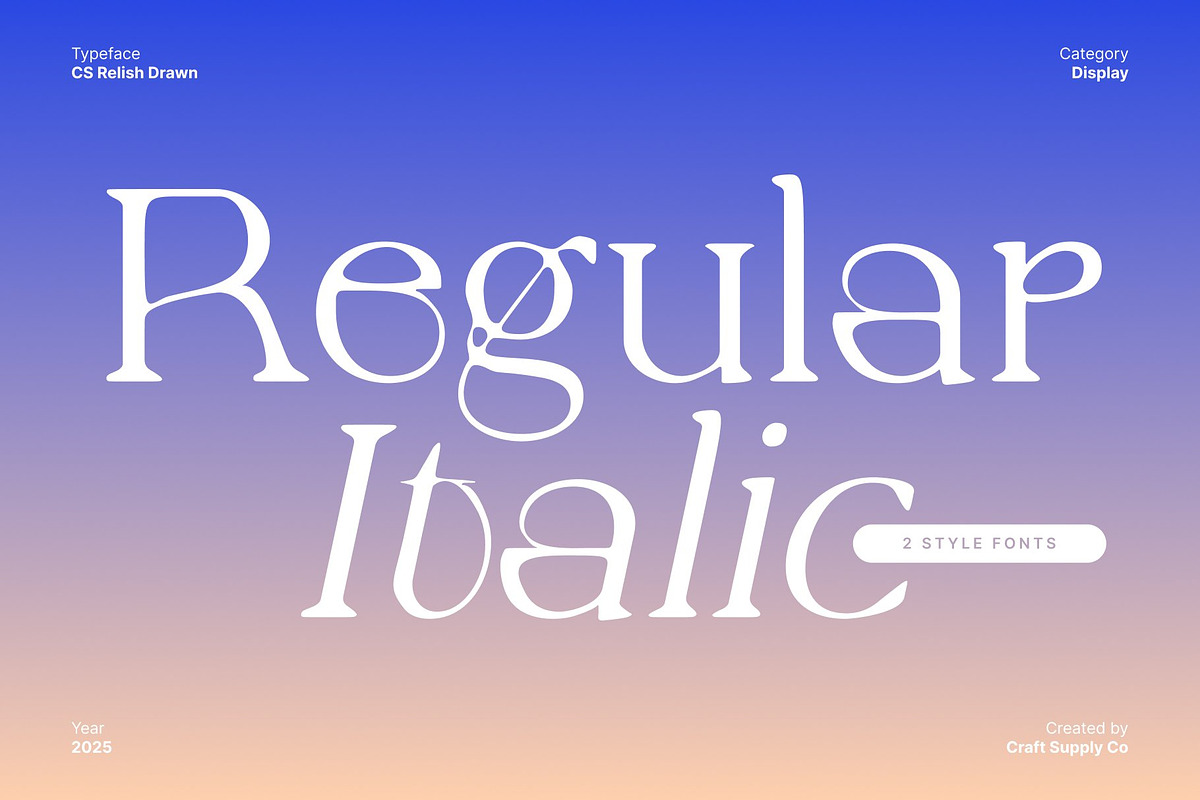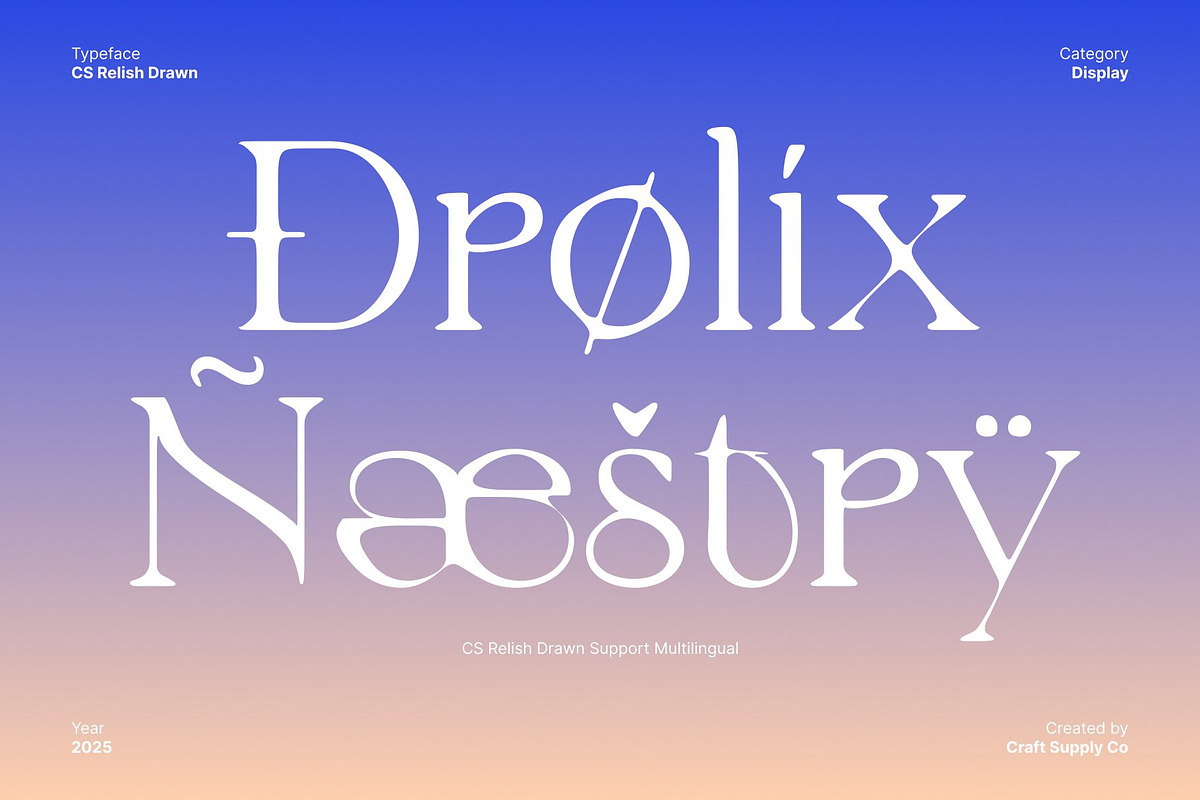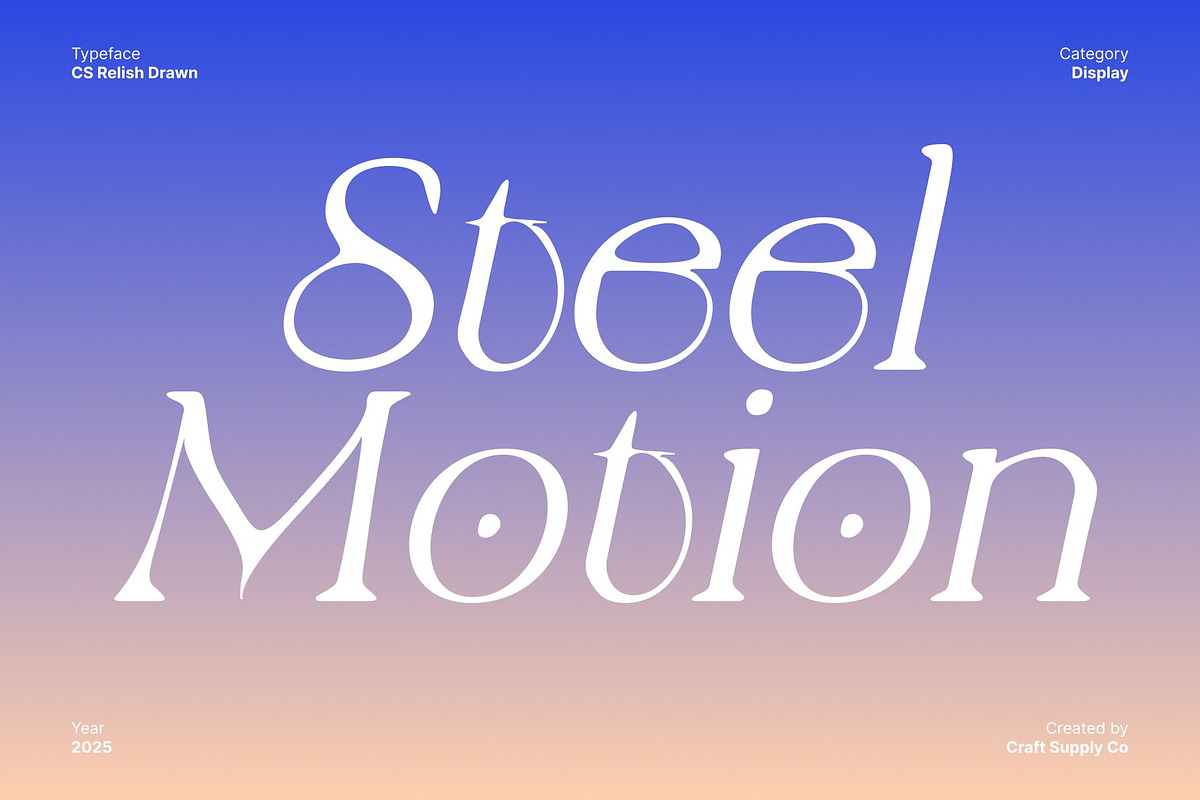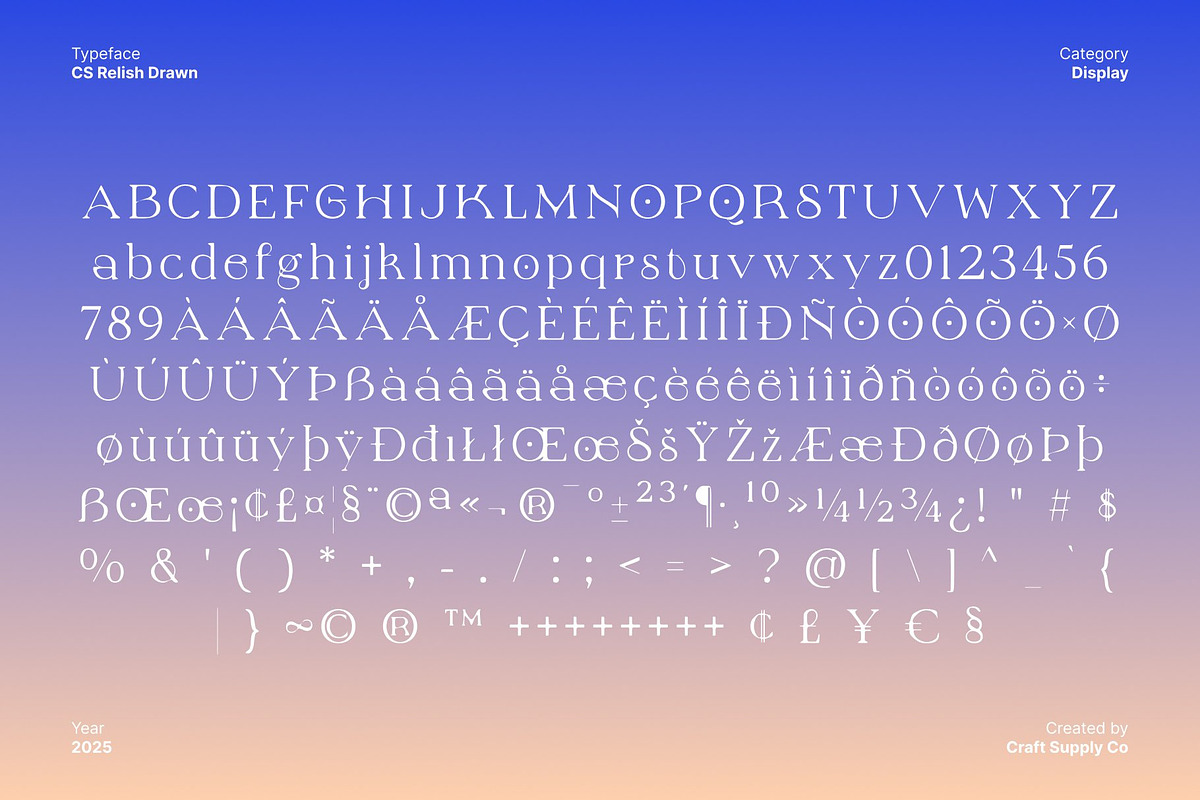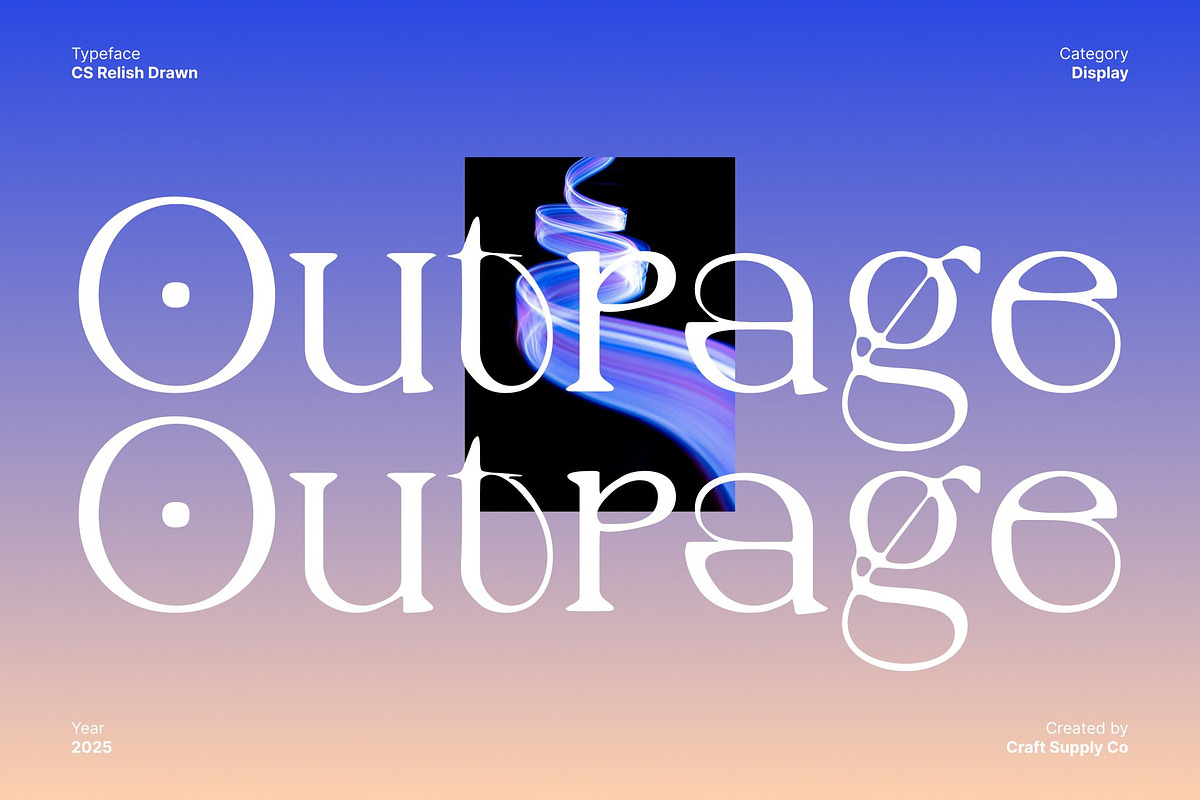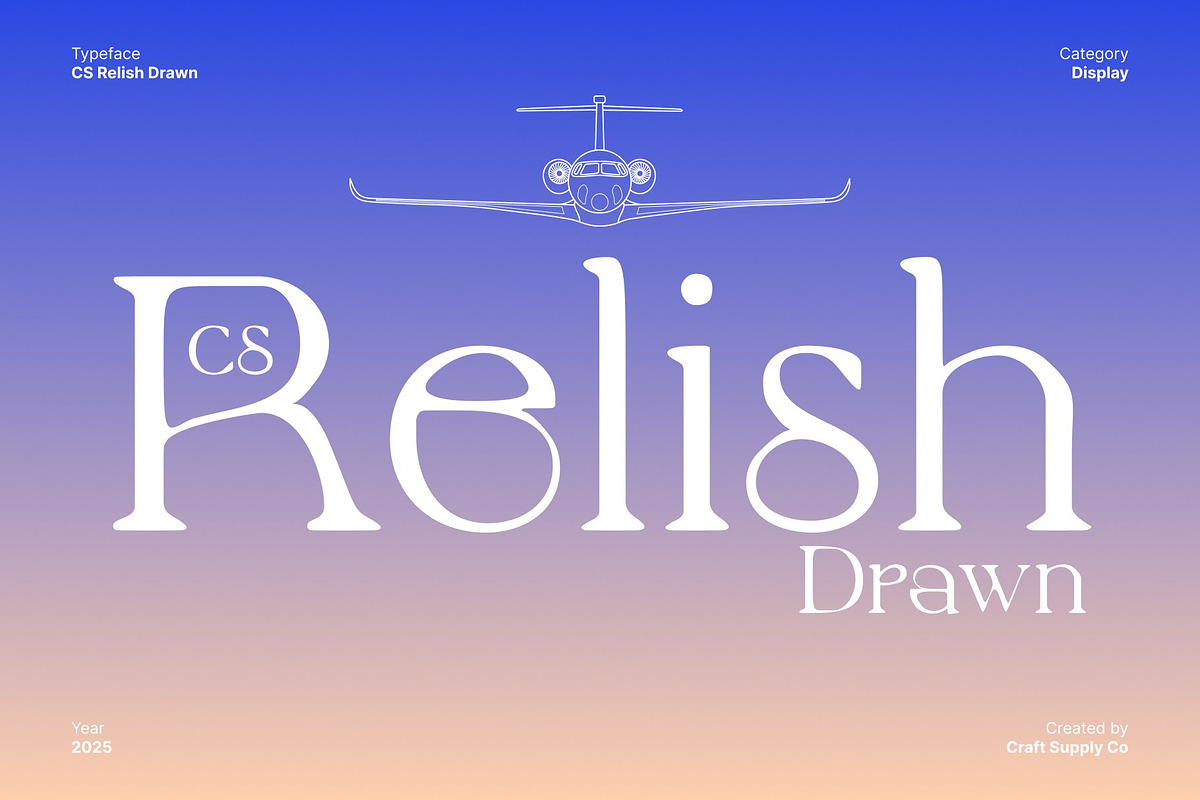
CS Relish Drawn
CS Relish Drawn – Chic Serif Font with Soft Artistic Drawn Texture
Elegant Shapes with Minimal Curves Stylish and modern, this chic serif font radiates effortless elegance through its minimal curves and refined structure. Its clean, graceful letterforms create a polished, contemporary look that elevates any design with sophistication and clarity. Each character carries a gentle flow that enhances readability while maintaining a high-end feel.
Drawn Effect for Soft Artistic Beauty The drawn effect adds a soft, handcrafted texture that enhances the font’s charm. This artistic touch introduces warmth and subtle imperfection, giving each character a unique beauty flair while maintaining its modern, chic appeal. The added texture creates a sense of authenticity, making the type feel more human, expressive, and visually engaging.
Perfect for Editorials, Branding, and Lifestyle Design Ideal for fashion editorials, premium branding, lifestyle products, packaging, and social media visuals, this font delivers a stylish presence that feels both elegant and approachable. Its versatile structure ensures it works beautifully in both large headlines and smaller text elements, offering designers consistent refinement across creative applications.
Modern, Beautiful, and Effortlessly Refined Blending chic serif sophistication with a delicate drawn texture, this font offers a beautifully artistic typeface that stands out with style, softness, and modern elegance. It is the perfect choice for projects that aim to communicate luxury, creativity, and contemporary charm while maintaining a warm and expressive visual identity.
- CS Relish Drawn Regular
- CS Relish Drawn Italic